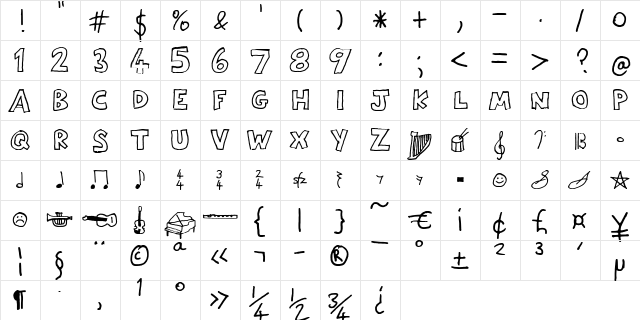
Amura Music Regular
Design Context for Amura Music Typeface
Amura Music is a composed and adaptable typeface that performs quietly and consistently across a wide range of design contexts.